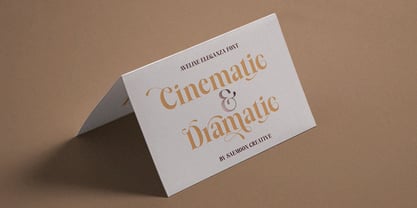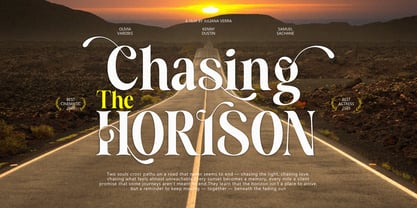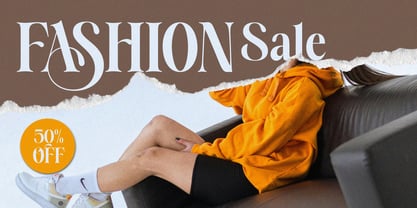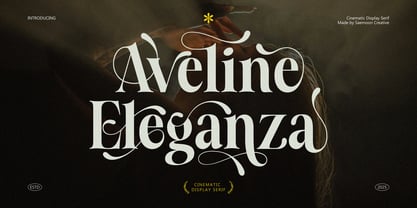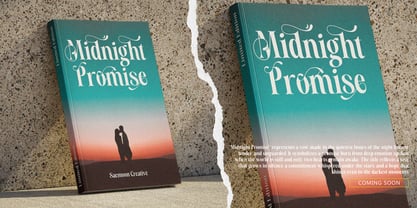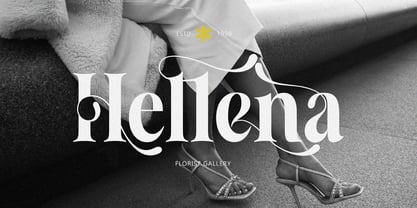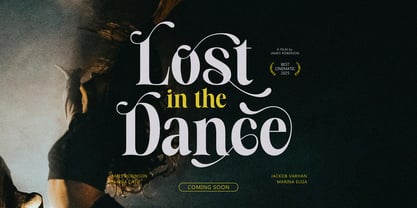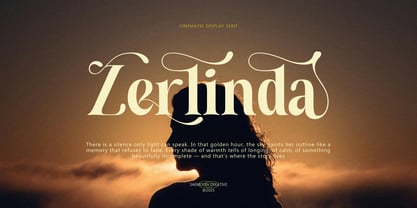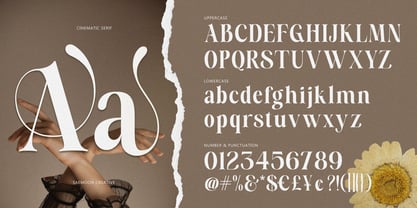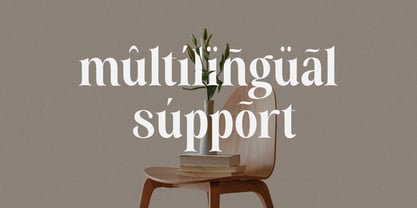
Aveline Eleganza
by Saemoon Creative
The Aveline Eleganza Font Family was designed by Sapto Susilo and published by Saemoon Creative. Aveline Eleganza contains 2 styles and family package options. More about this family
Aveline Eleganza is a cinematic display serif that blends timeless sophistication with expressive modern flair. Designed with sweeping curves, elegant high-contrast strokes, and dramatic ornamental terminals, this typeface brings a refined sense of luxury to every composition. Each letter is crafted to stand out—bold, artistic, and richly stylized—making Aveline Eleganza perfect for designers who want to create unforgettable visuals. The font’s graceful alternates and decorative swashes add a bespoke, handcrafted feel, elevating headlines into striking centerpieces. Ideal for editorial design, luxury branding, film posters, packaging, fashion campaigns, and high-end social media graphics, Aveline Eleganza offers the visual drama your project deserves. Bring cinematic beauty to your typography with Aveline Eleganza—a display serif made to captivate.